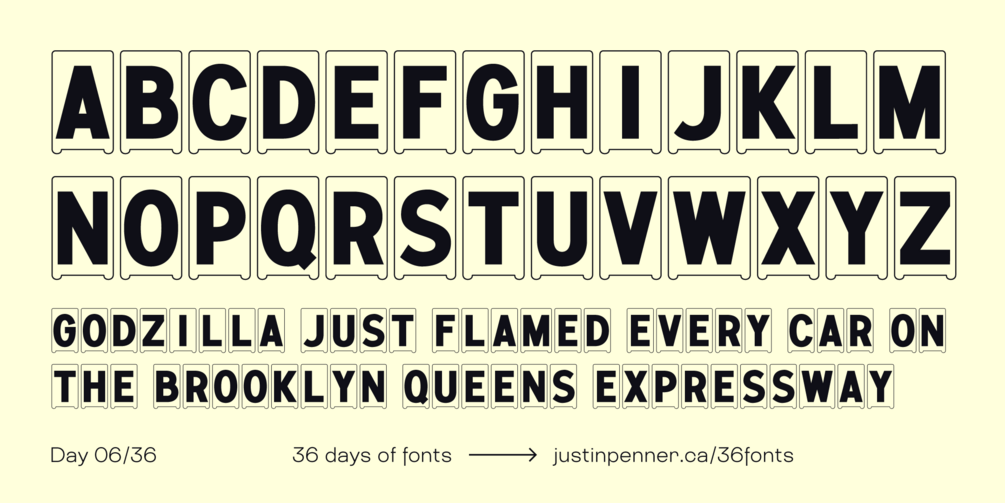
36 Days of Fonts: Day 06
Marquee
Having worked at a sign company for a number of years, I'm quite familiar with the letters used on theatre marquee signs. They're typically made from clear plastic, and they often have nubs on the bottom to reduce friction and help them slide along the tracks on the sign. The plastic panels come in a few set widths, so I did the same, setting up three panel widths. The two classic marquee lettering styles are a square industrial-looking sans-serif and a more curved humanist sans. I went with the latter, and only made small optical corrections, which brings out the signpainter style that marquee letters are known for.